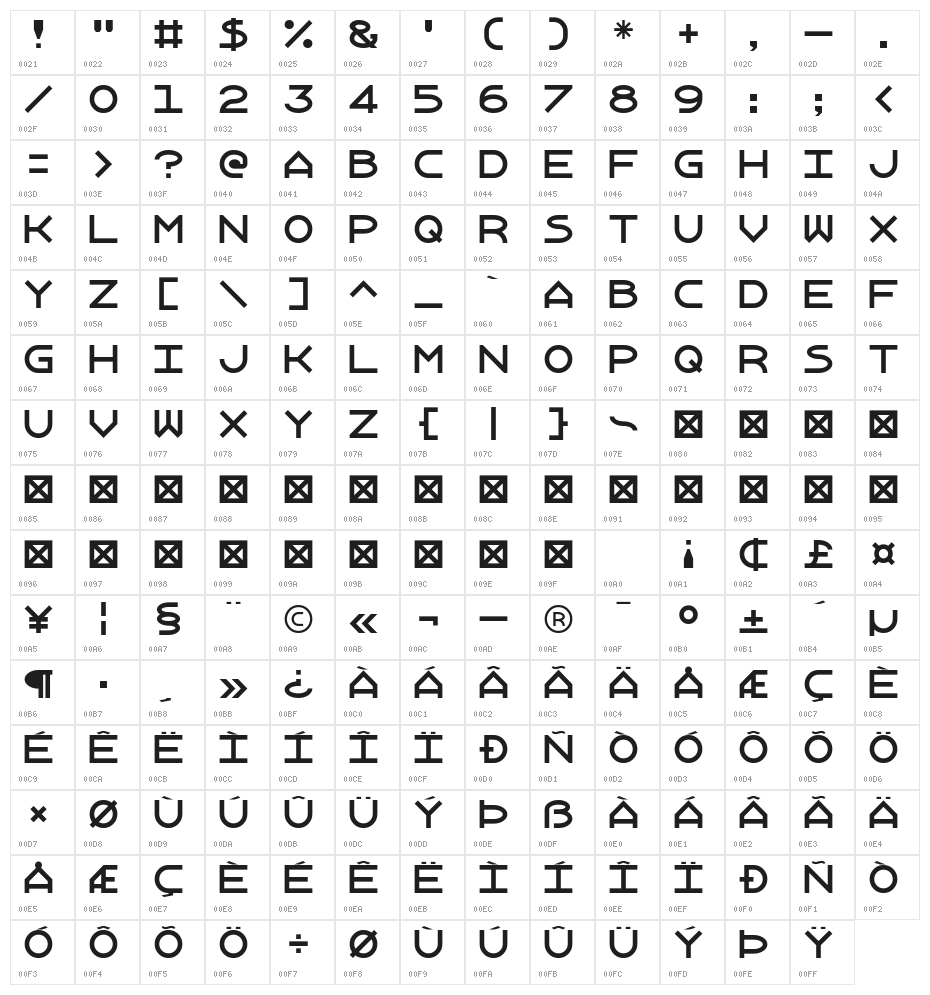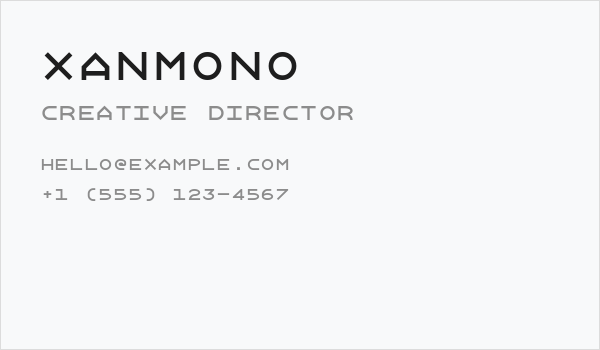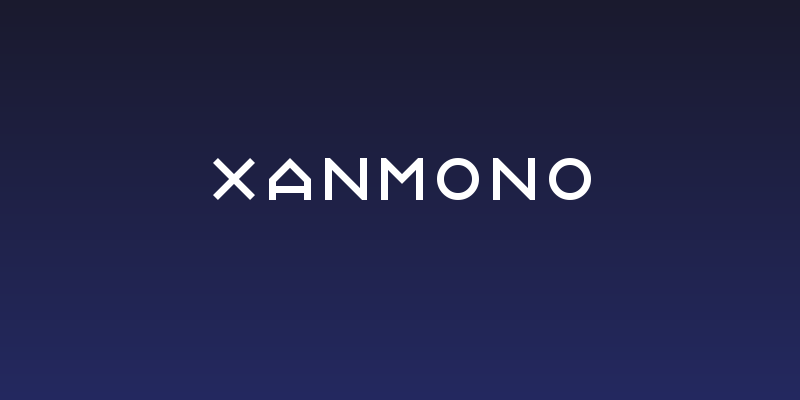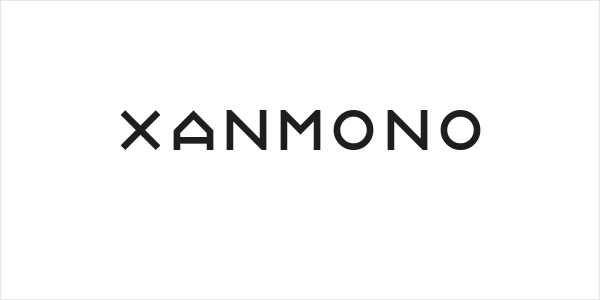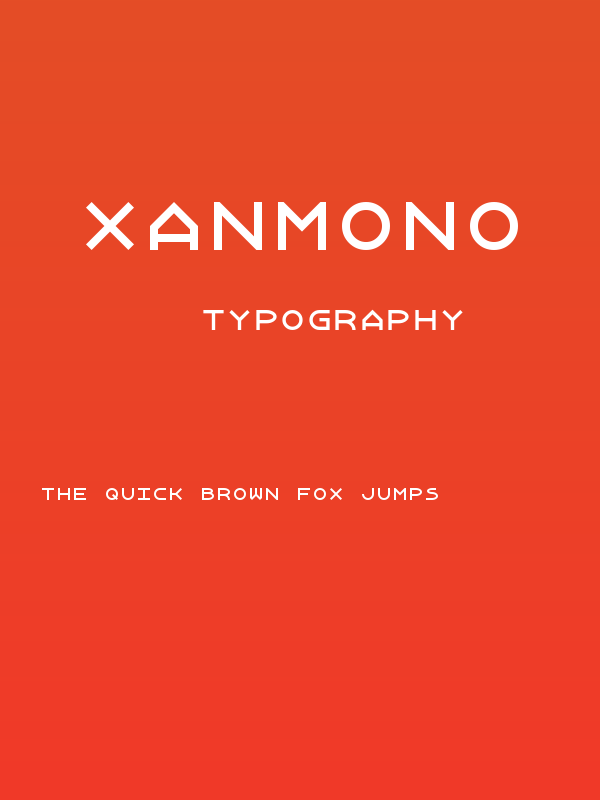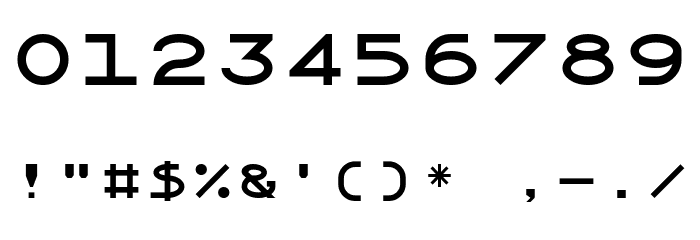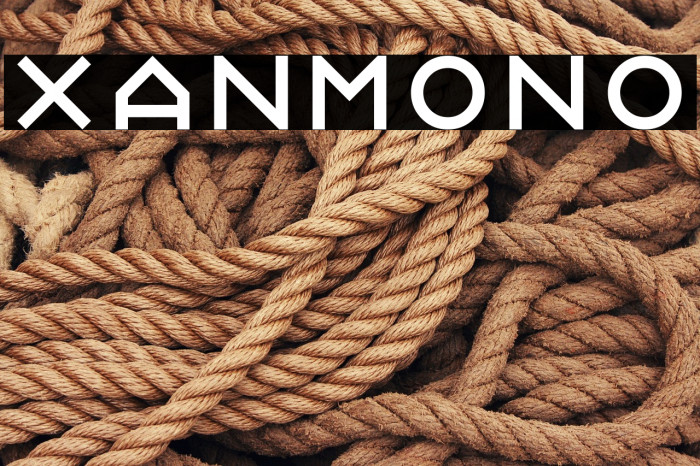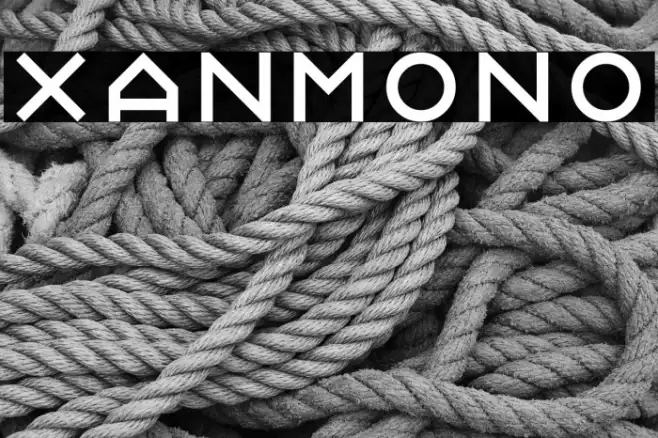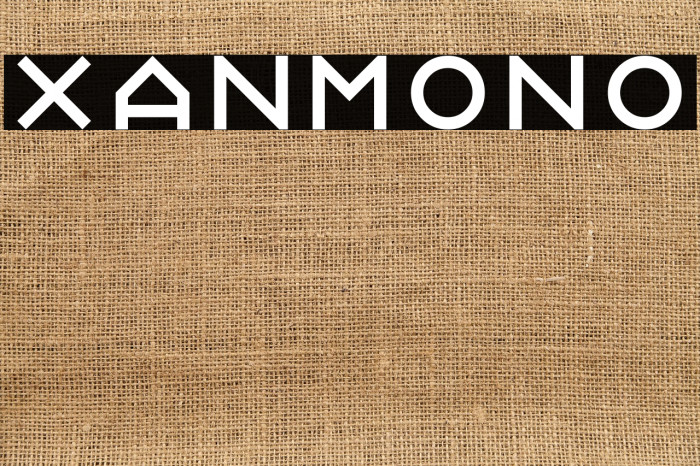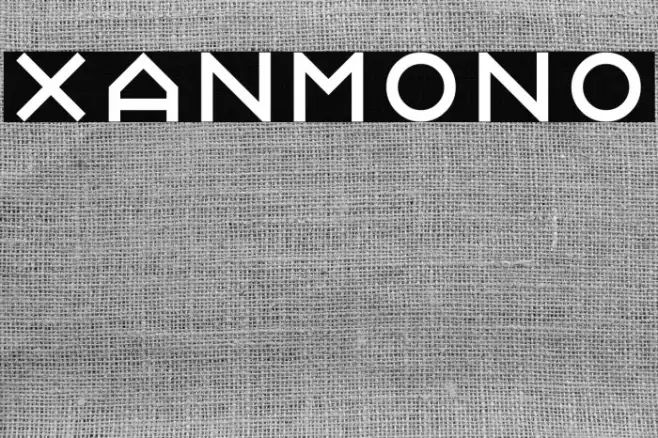
Xanmono Font
Xanmono Description
This font features a modern and clean design with a monospaced structure, providing uniformity and precision across all characters. The uppercase and lowercase letters maintain a consistent width, which is ideal for coding and tabular data. The geometric shapes and straight lines give it a contemporary feel, while the rounded edges add a touch of softness. The numerals are clear and distinct, ensuring readability. Special characters are well-defined, making this font versatile for various applications.
| Use Case | Coding, Technical documentation, Data visualization |
| Proposed Projects | Ideal for coding environments, technical documentation, and data visualization projects. |